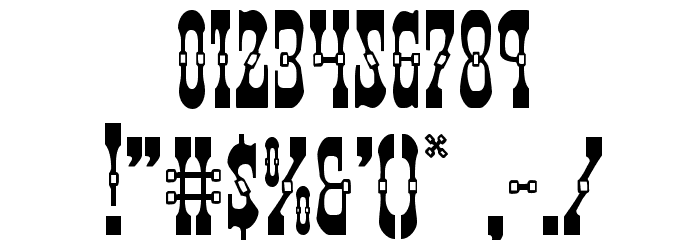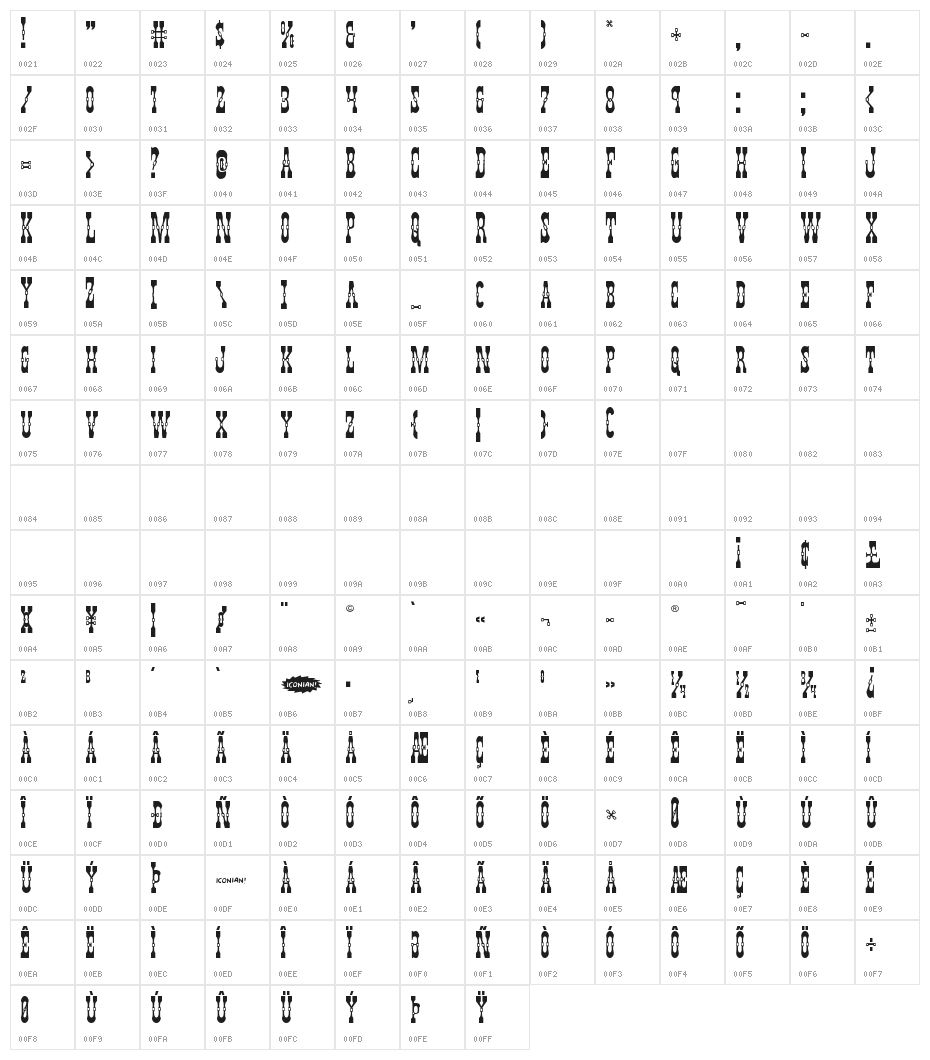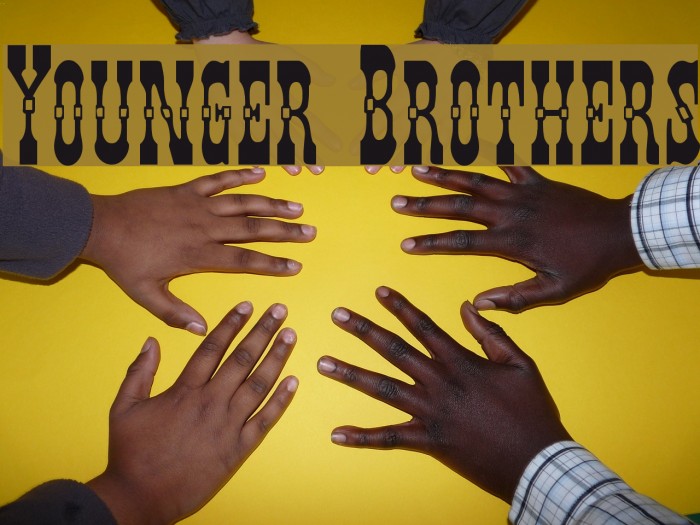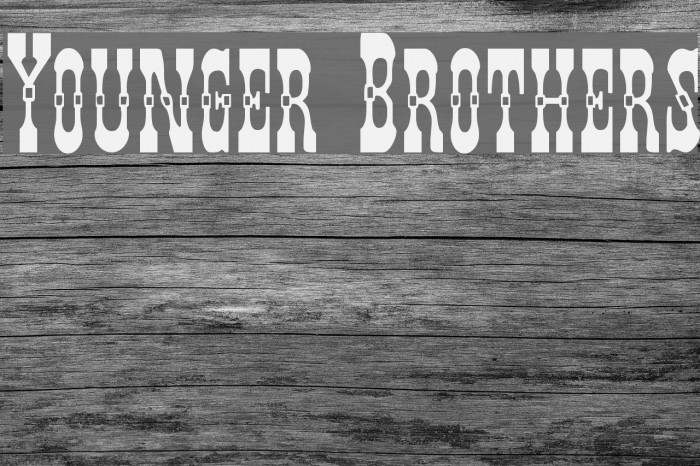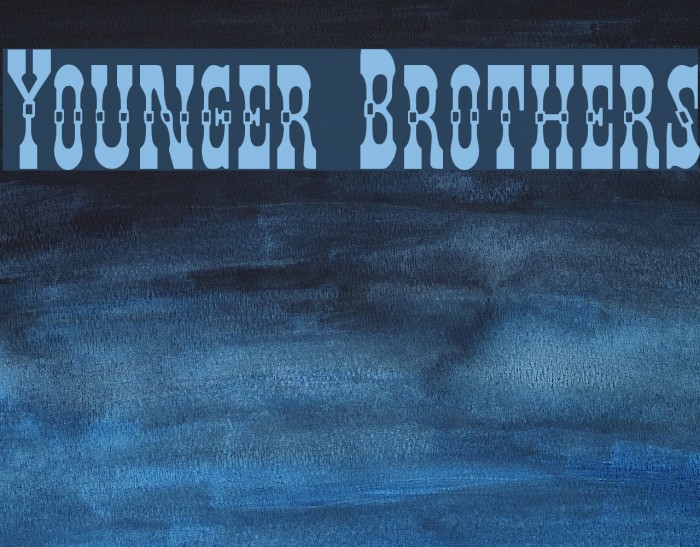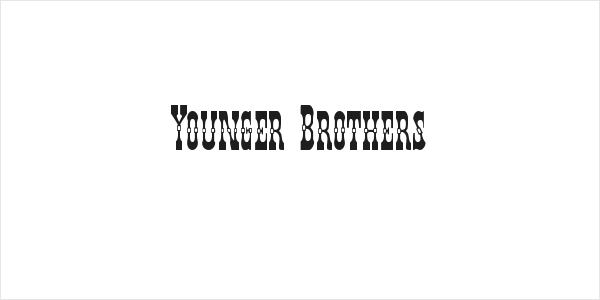
Younger Brothers Font
Younger Brothers Description
This font features a bold and decorative style with a distinctive Western or vintage flair. The characters are designed with thick strokes and unique cut-out patterns, giving them a striking appearance. The uppercase and lowercase letters maintain a consistent design, with the uppercase being particularly prominent and eye-catching. The numerals and special characters follow the same bold and decorative theme, making the font suitable for attention-grabbing designs. The overall look is reminiscent of old Western posters or vintage signage, making it ideal for projects that require a touch of nostalgia or a bold statement.
| Proposed Projects | Ideal for vintage-themed posters, Western-style branding, or decorative headlines. |